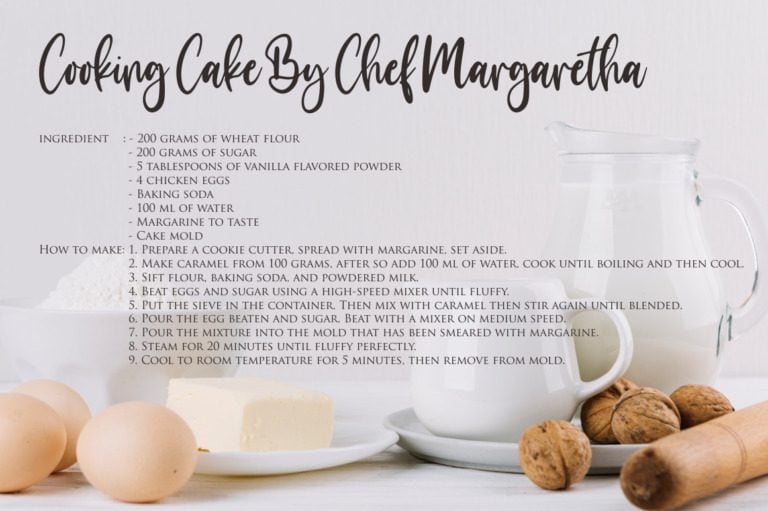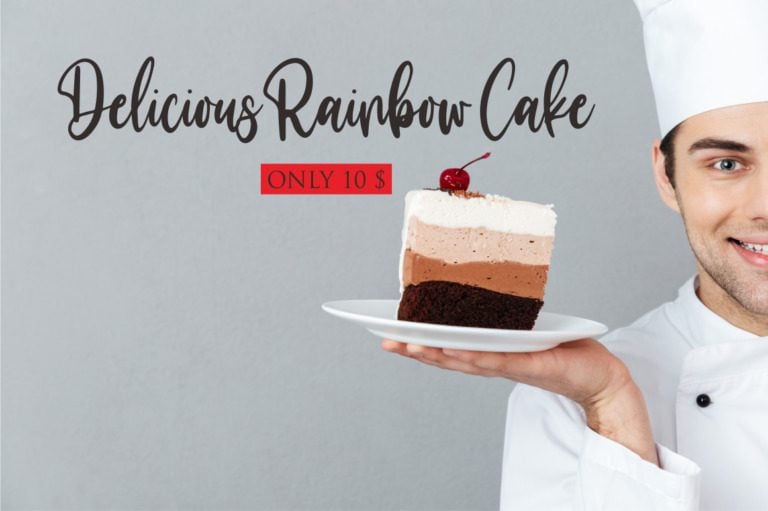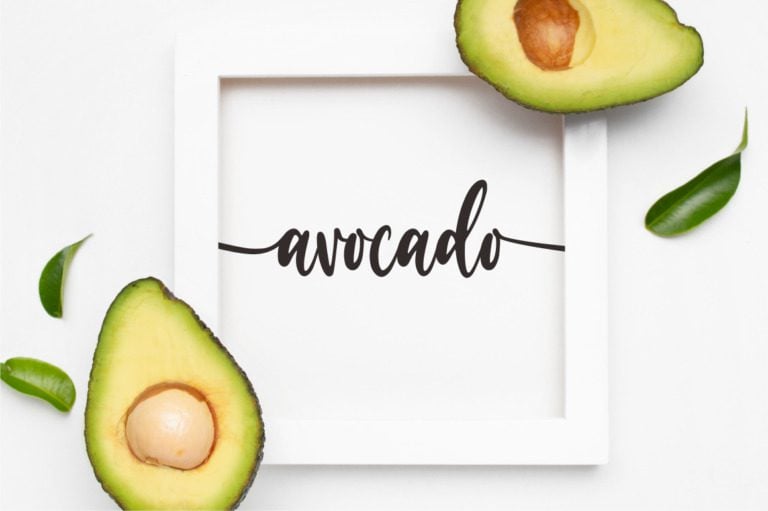
Make Cake Font
Make Cake is a fun and playful font that captures the joy of baking. Its whimsical design features rounded letters and decorative elements, reminiscent of sprinkles, frosting, and other sweet treats. Perfect for bakery logos, menus, packaging, and any design that needs a touch of sweetness, Make Cake is a versatile font that will add a delicious touch to your creations.